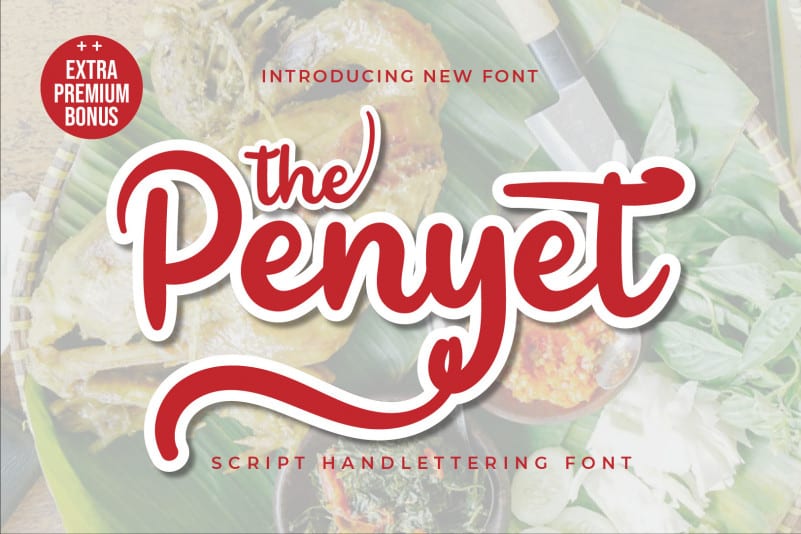
Penyet Script Font
Penyet Script Font is an exquisite display font, masterfully designed to become a true favorite. It maintains its classy calligraphic influences while feeling contemporary and fresh. Fall in love with it and bring your projects to the highest levels!